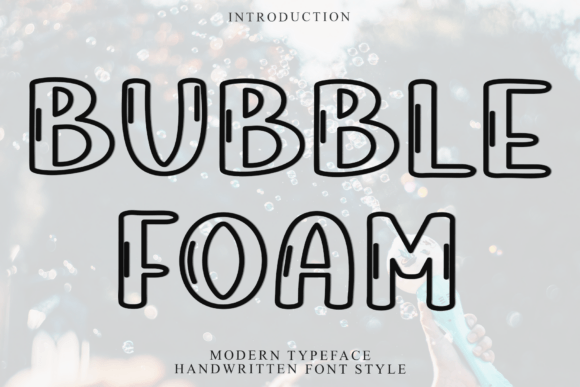
Bursting with Creativity: The Joy of Bubble Foam Font
Have you ever stumbled upon a font that makes you smile, and suddenly, a design project that was feeling stale starts to come alive? For many designers, this moment of creative spark is exactly what they’re looking for. And that’s where the Bubble Foam Font comes in – a delightful, hand-drawn font that’s as warm and inviting as a sunny day.
This charming font is designed to bring a sense of playfulness and approachability to any design project. Whether you’re creating personal invitations, social media graphics, or just want to add some whimsy to a blog post, the Bubble Foam Font is the perfect addition. With its PUA Encoded glyphs, it’s easy to use across various design applications, making it a valuable asset for designers looking to add a unique touch to their work.
Bubble Foam Font Key Features
• Unique Characteristics: The Bubble Foam Font features a unique, playful design with rounded shapes and soft edges, perfect for creating a whimsical and eye-catching visual effect.
Bubble Foam Font Review
Overall, I think the Bubble Foam Font is a unique and eye-catching choice for designers looking to add some whimsy to their projects.
• ✨ Highly customizable: The font is available in a range of weights, styles, and sizes, making it easy to adapt to different design needs.
• ✨ Versatile: Bubble Foam Font can be used in a variety of contexts, from digital displays to print materials.
• ✨ Easy to read: Despite its playful appearance, the font is surprisingly legible, making it a great choice for body text.
• ⚠️ Limited language support: Currently, the font only supports Latin-based languages, which may be a limitation for designers working on multilingual projects.
• ⚠️ Not ideal for small text: While the font is easy to read in larger sizes, it can become difficult to read when scaled down to very small sizes.
Overall, I think the Bubble Foam Font is a great choice for designers who want to add some visual interest to their projects. While it may have some limitations, its versatility and customizability make it a solid option for a wide range of design applications.
Tips for Getting the Most Out of the Bubble Foam Font
Use the Bubble Foam Font to add a playful and whimsical touch to your designs.
Pair the font with bold colors and geometric shapes for a fun and eye-catching effect.
Experiment with different font sizes and styles to create a unique and engaging design.
The Bubble Foam Font is ideal for:
Creative branding and marketing materials.
Children’s party invitations and decorations.
Playful social media graphics and ads.
Any design project that requires a fun and lighthearted touch.
Alternatives to Bubble Foam Font
Great Vibes is a modern, cursive font that conveys a sense of playfulness and creativity. It is ideal for use in headings, titles, and quotes where you want to add a touch of elegance and sophistication.
Compared to Bubble Foam Font, Great Vibes has a more refined and polished look, making it suitable for a wider range of designs, from wedding invitations to advertising campaigns.